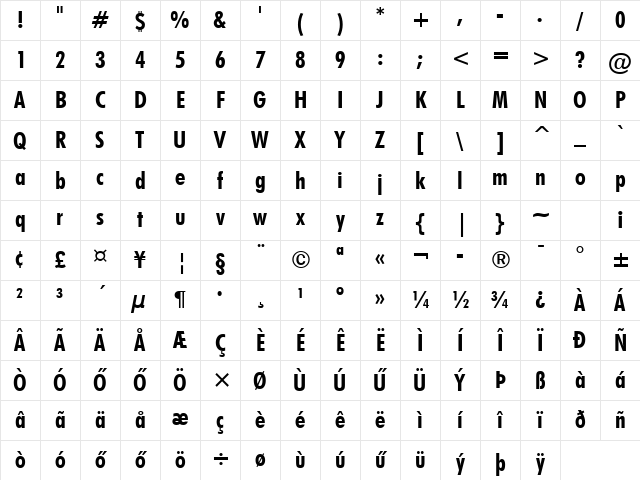
H_FUTBCB Regular Free Font
H_FUTBCB Regular
Design Context for H_FUTBCB
H_FUTBCB is a composed and adaptable typeface that performs quietly and consistently across a wide range of design contexts.